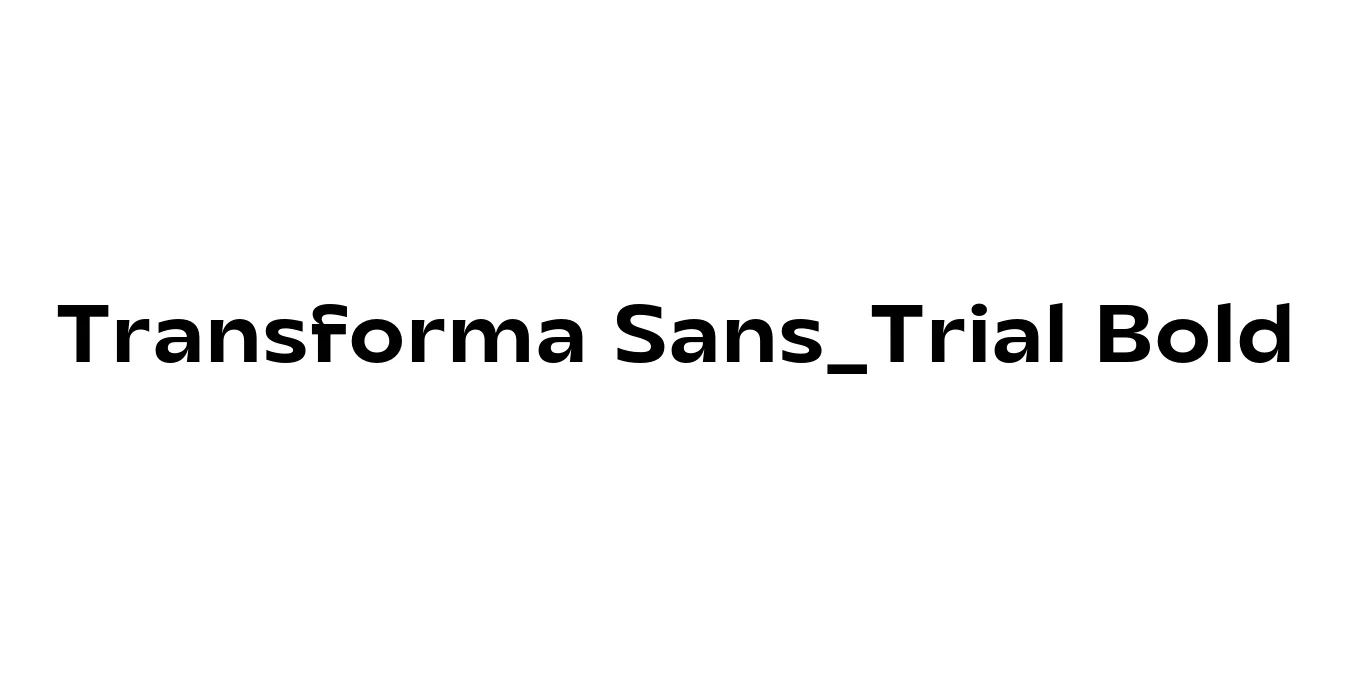
Transforma Sans_Trial Bold
Transforma Sans is a contemporary geometric sans-serif typeface designed by the renowned Italian foundry Zetafonts. It was conceived as part of a larger superfamily that bridges the gap between script-like fluidity and modernist structural precision. The Bold Trial weight is specifically engineered to provide a powerful visual impact, featuring a high x-height and wide apertures that ensure maximum legibility across both digital and analog mediums.
The design philosophy behind Transforma Sans focuses on versatility and functionality. While it maintains a clean, architectural skeleton, it incorporates subtle humanist touches that prevent it from feeling sterile. This makes the Bold weight an excellent choice for designers who require a font that can carry a brand's voice with authority while remaining approachable and modern in diverse editorial and corporate environments.
Transforma Sans_Trial Bold Best Uses
Ideal for creating strong and authoritative visual identities and logos.
Excellent for high-impact headers, hero sections, and navigation menus.
Perfect for magazine headlines, posters, and large-scale outdoor advertising.
Clean geometry makes it highly effective for mobile app interfaces and dashboard titles.